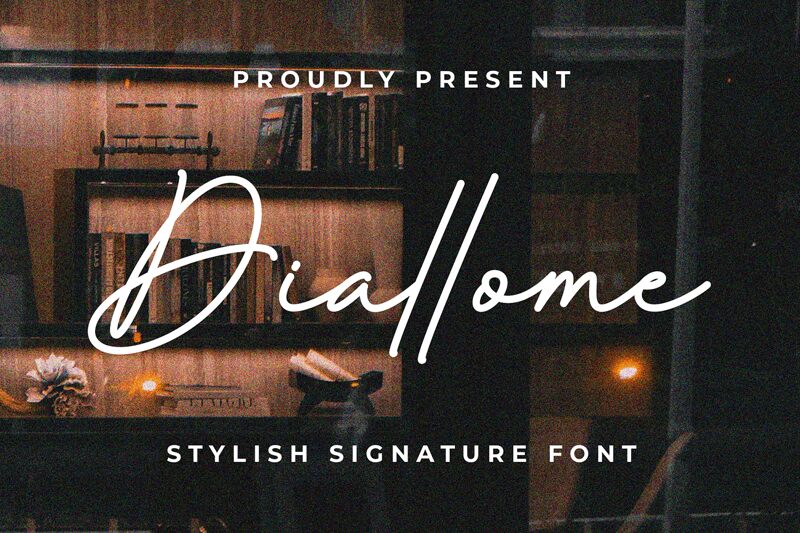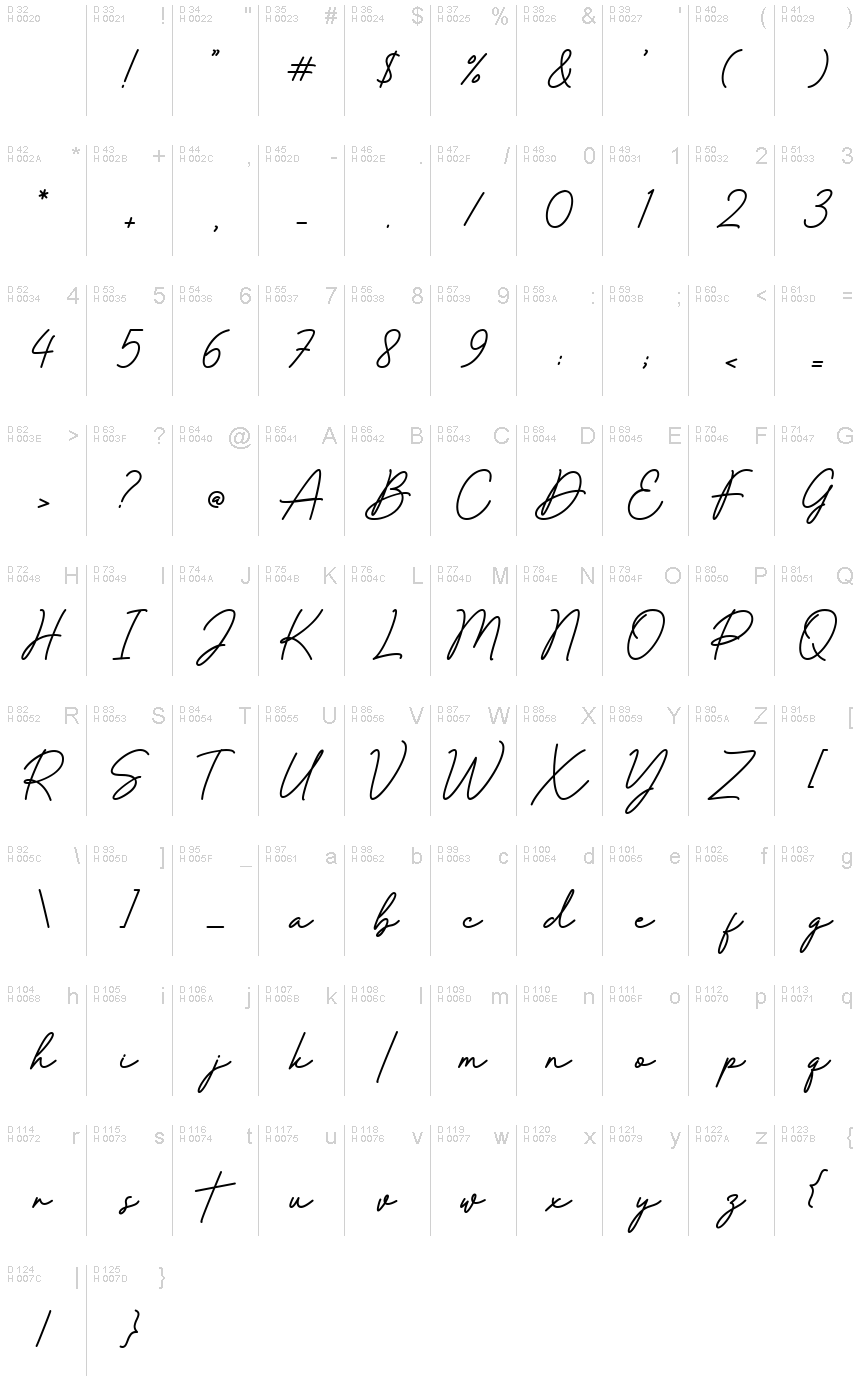
Diallome Demo
Diallome, crafted by MJB Letters, exudes a personal touch with its handwritten style that captures the charm of ink flowing across paper. Its delicate strokes and subtle flair evoke an air of elegance and intimacy. The font's natural and fluid design lends itself to applications where a touch of warmth and sophistication is desired.
Ideal for personalized stationery, wedding invitations, or branding for boutique businesses, Diallome's aesthetic appeal bridges the gap between traditional handwriting and contemporary finesse.